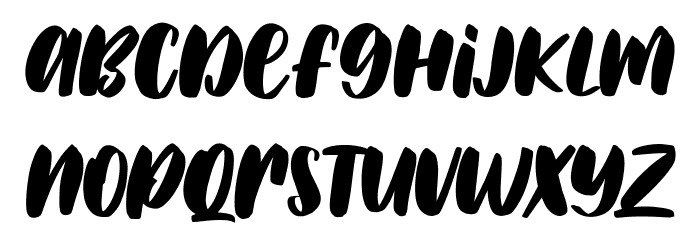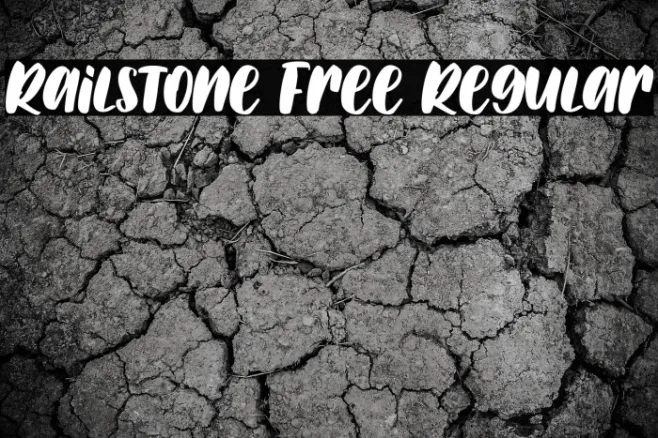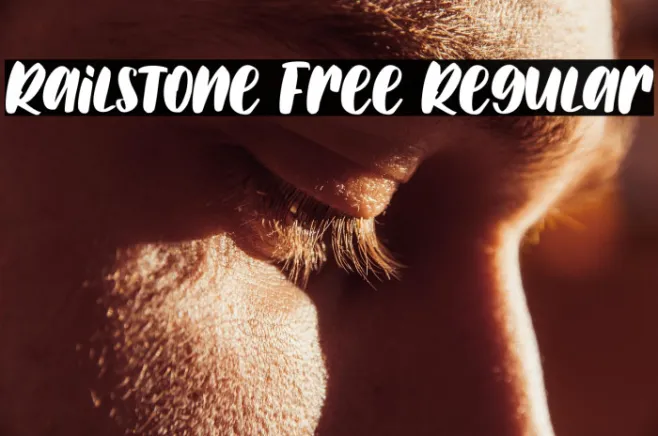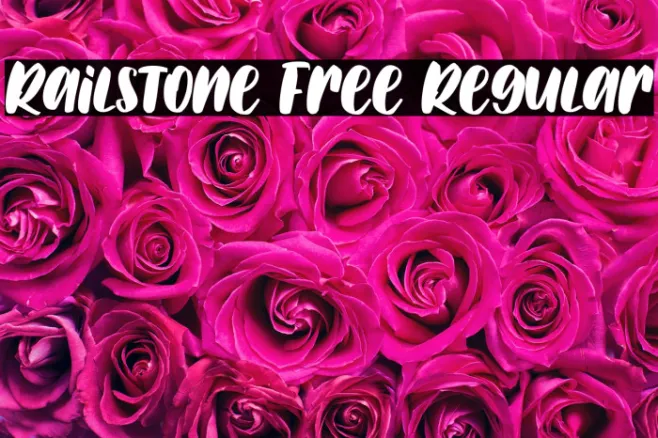
Railstone Free Regular Font
This font features a bold, expressive style with a handwritten aesthetic, characterized by thick strokes and smooth curves. The letters are closely spaced, creating a cohesive and dynamic appearance. The uppercase and lowercase letters maintain a consistent flow, enhancing the font's fluidity. The boldness of the strokes gives it a strong presence, making it suitable for attention-grabbing designs. The font's playful yet sophisticated style makes it versatile for various creative applications.
A bold, handwritten-style font with thick strokes and smooth curves.
- Font: Railstone Free Regular
- Category: Handwritten
- Character Spacing: Tight